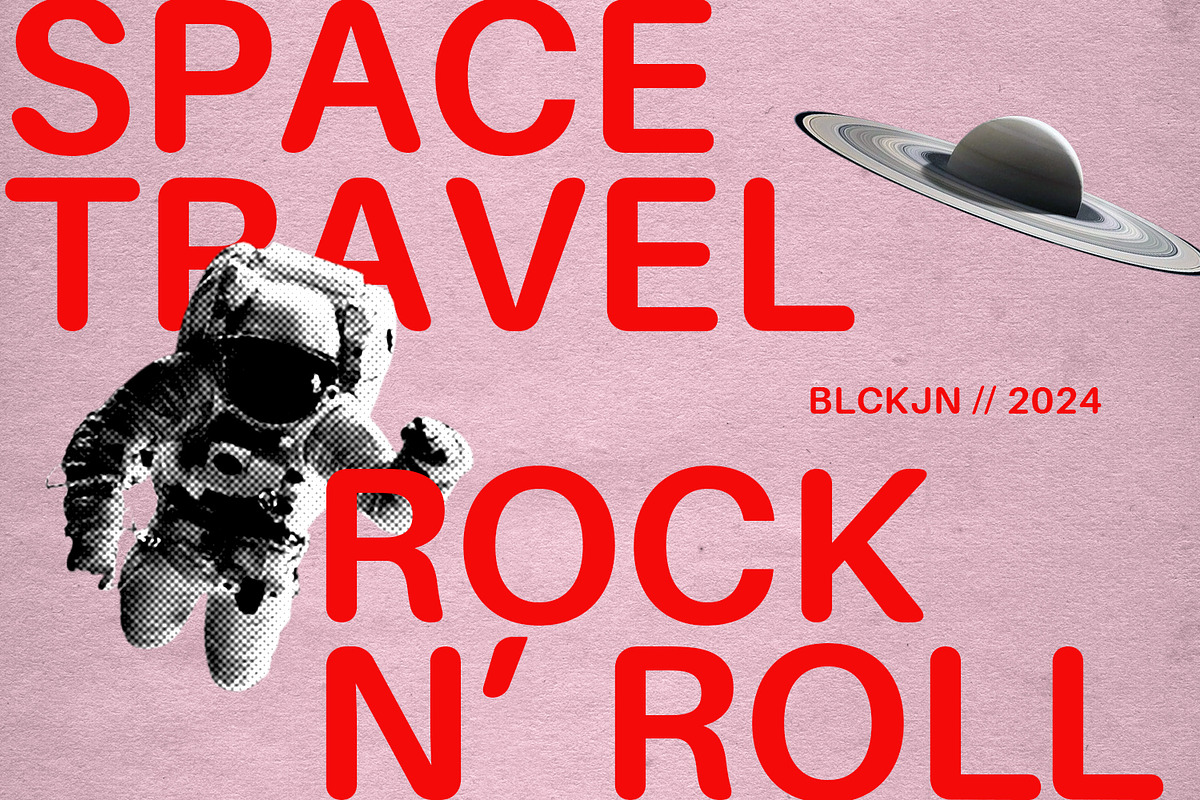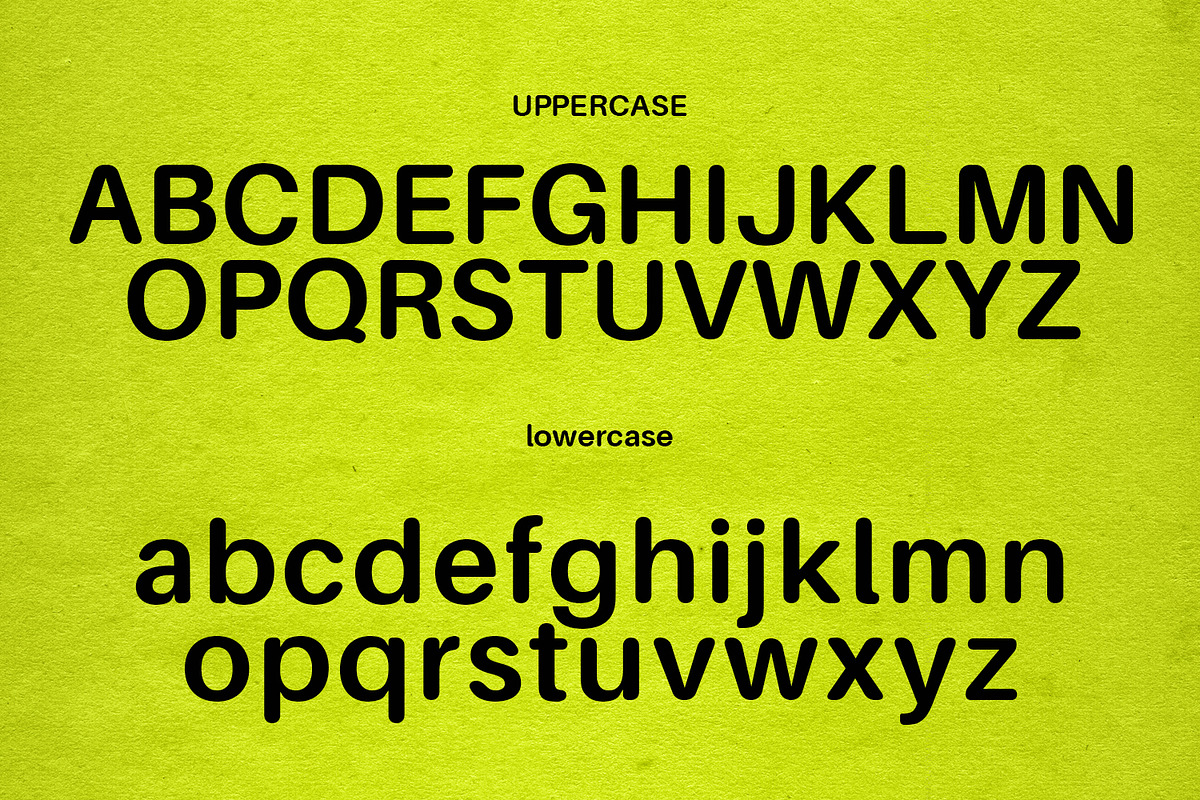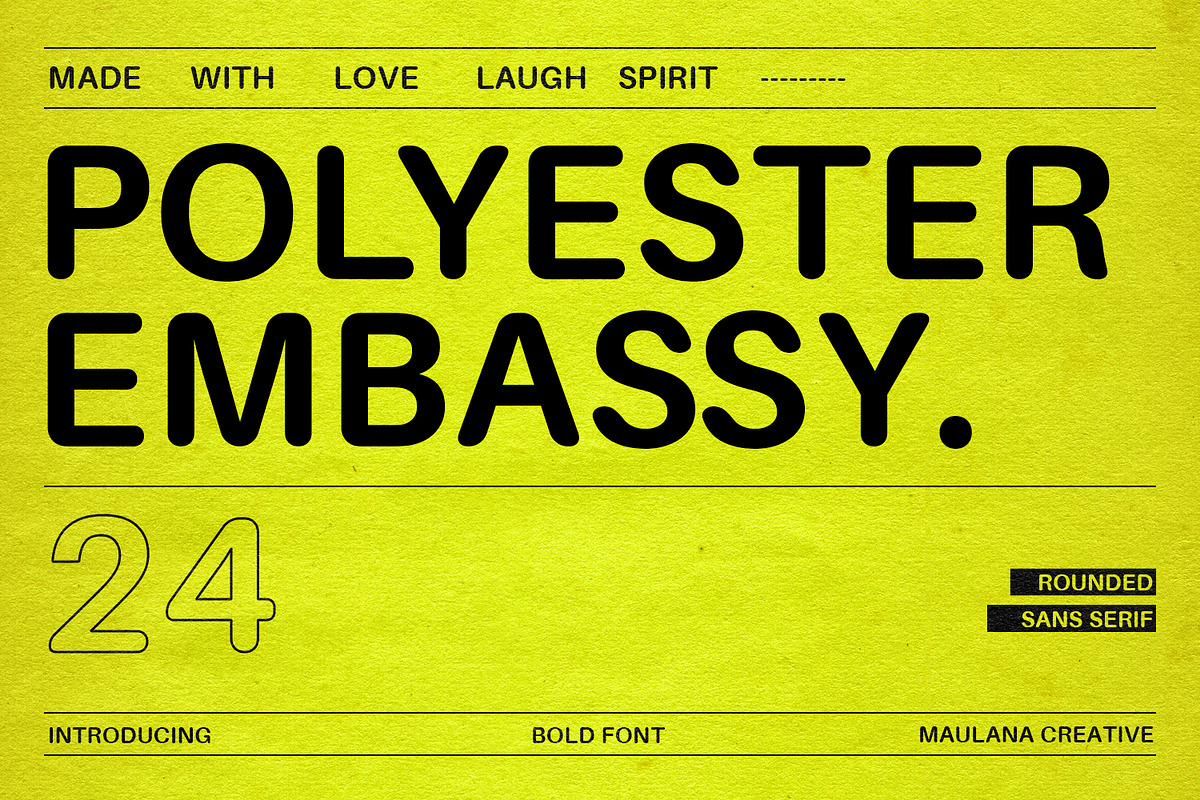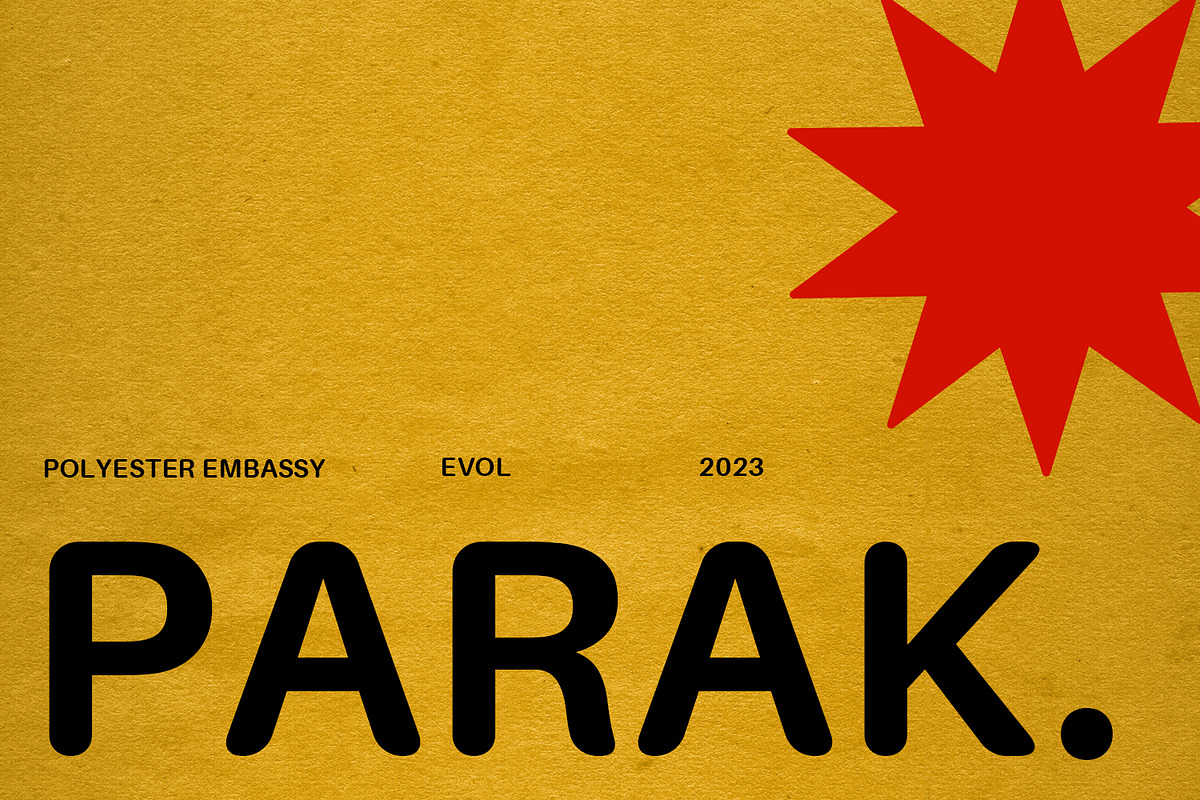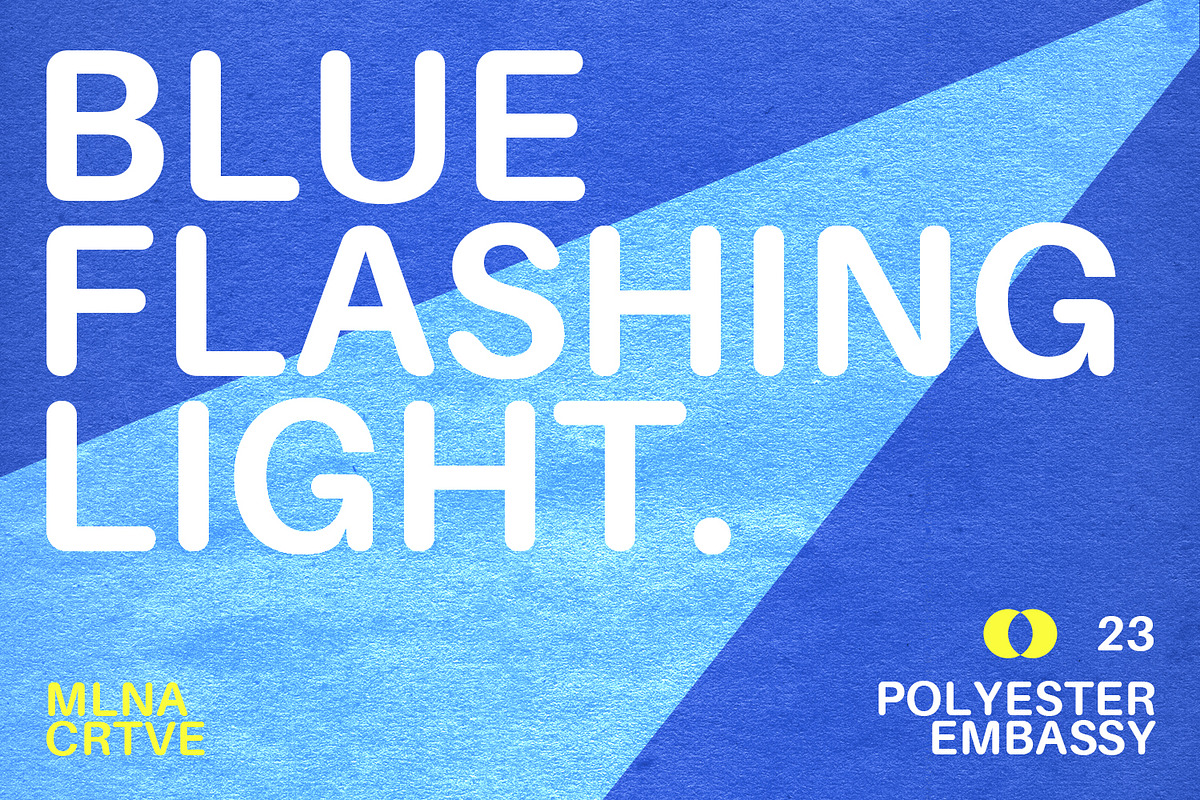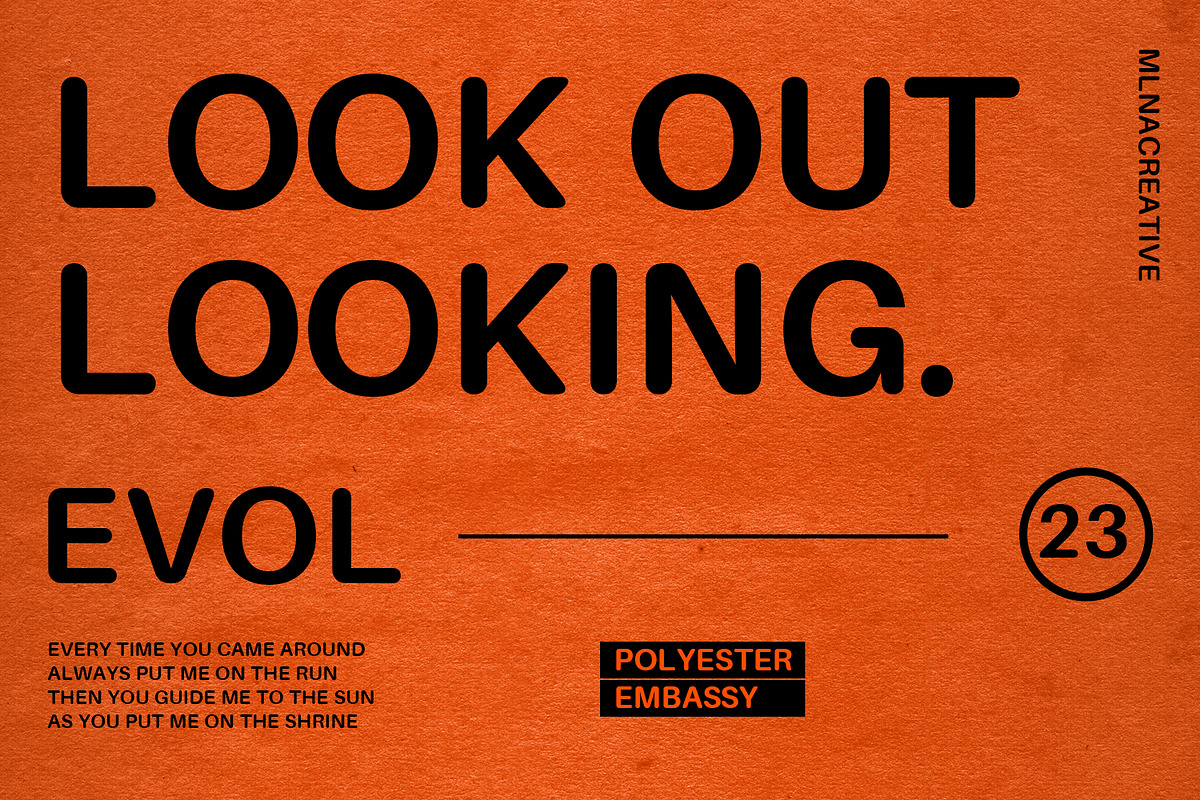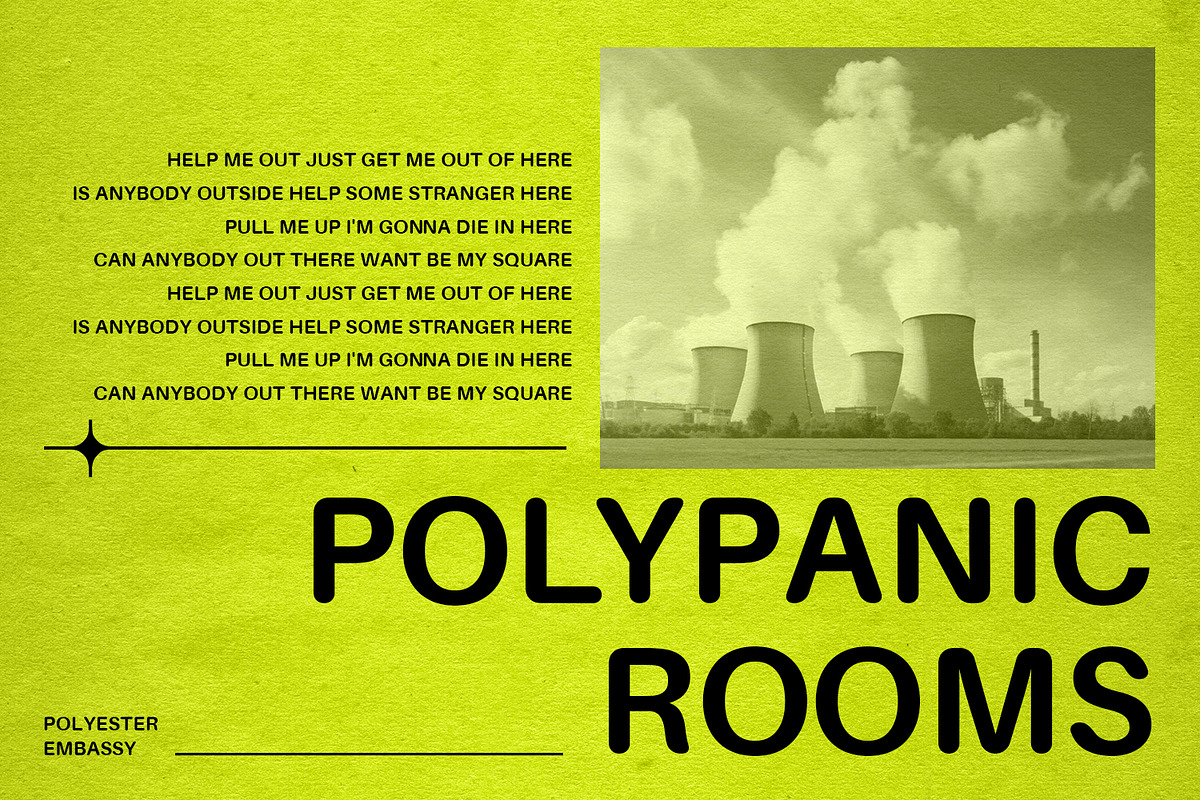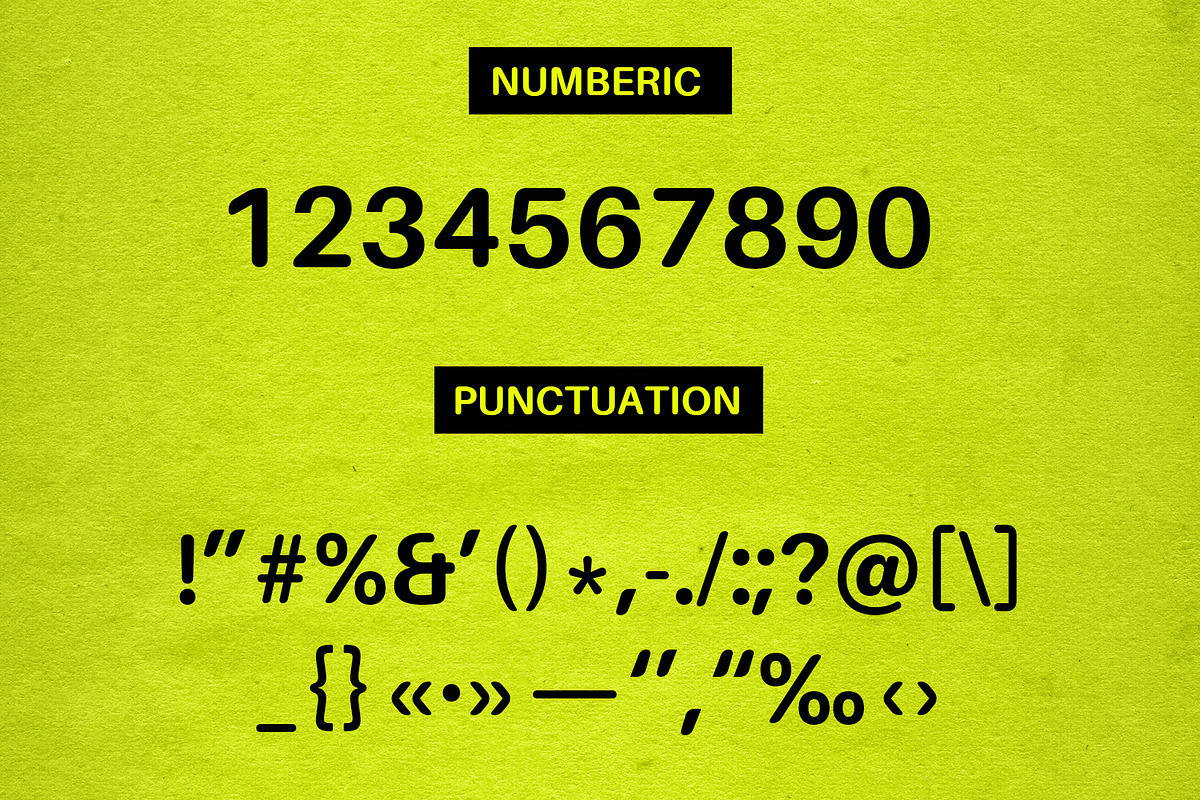
Polyester Embassy Rounded Sans Serif
Polyester Embassy rounded soft sans display font. Heavy stroke, fun character with a bit of ligatures. To give you an extra creative work. Polyester Embassy font support multilingual more than 100+ language. This font is good for logo design, Social media, Movie Titles, Books Titles, a short text even a long text letter and good for your secondary text font with script or serif. Make a stunning work with Polyester Embassy font.